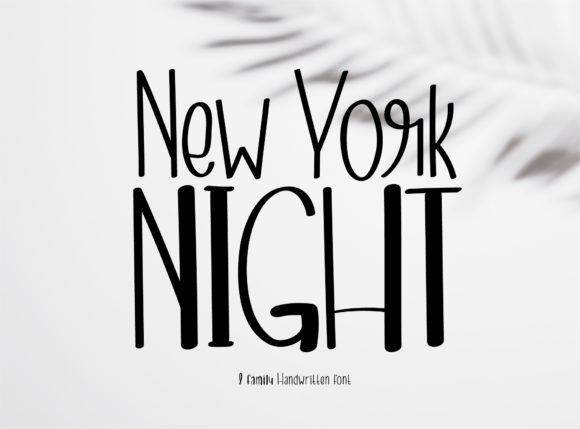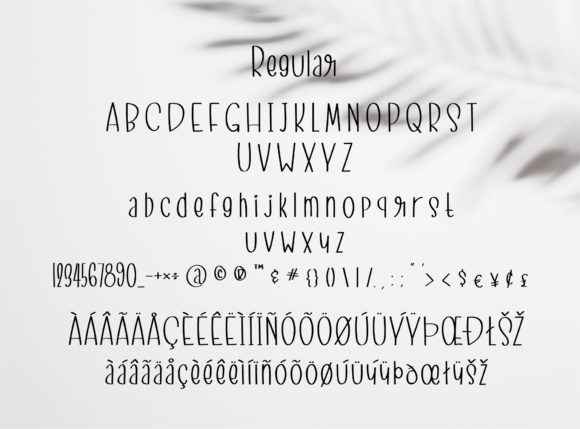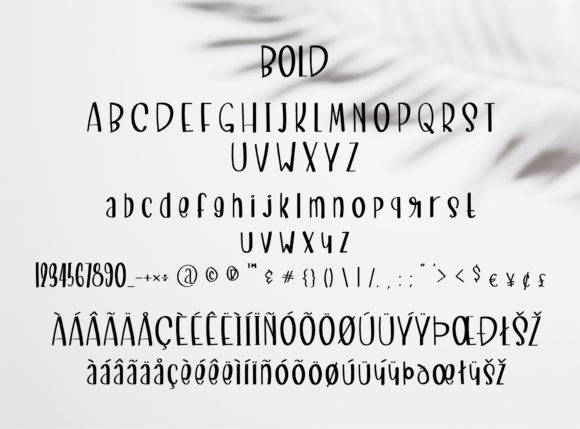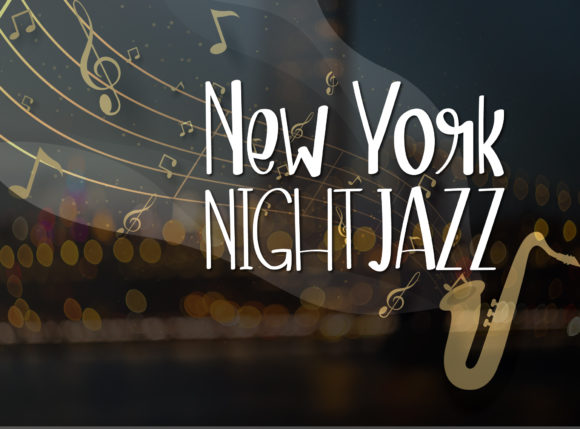
New York Night Font
About the New York Night Font
Experience the unique personality of New York Night Font, a font designed for impact. New York Night is a sweet and friendly handwritten font. Its natural and unique style makes it incredibly fitting to a large pool of designs. The only limit is your imagination!
New York Night’s friendly, handwritten style excels in projects requiring a personal touch, such as logos for boutiques, wedding invitations, or short-form social media content. It works particularly well for headlines, short quotes, and packaging where its charm can shine. However, avoid using it for body text or long paragraphs; its informal nature would hinder readability.
Consider pairing New York Night with a clean sans-serif like Lato for a balanced contrast, or a classic serif like Garamond for a more sophisticated feel. For a playful pairing, a geometric sans-serif such as Futura could create a striking juxtaposition.
The font’s overall personality is best described as approachable and charming, conveying warmth and approachability. This makes it ideal for brands emphasizing handcrafted quality or a personal connection with their audience.
New York Night Font Usage Examples
New York Night Font Example